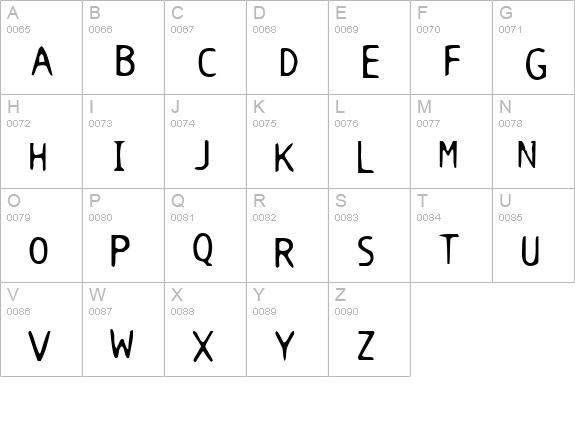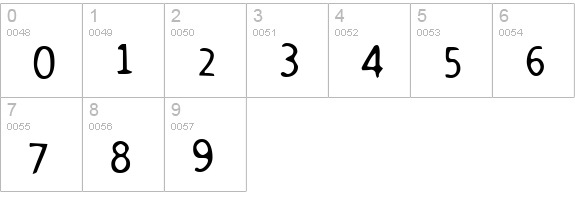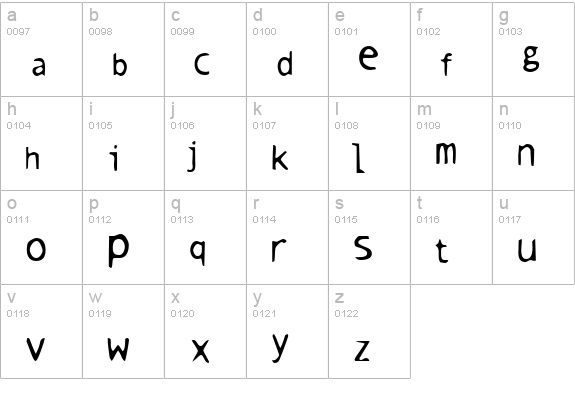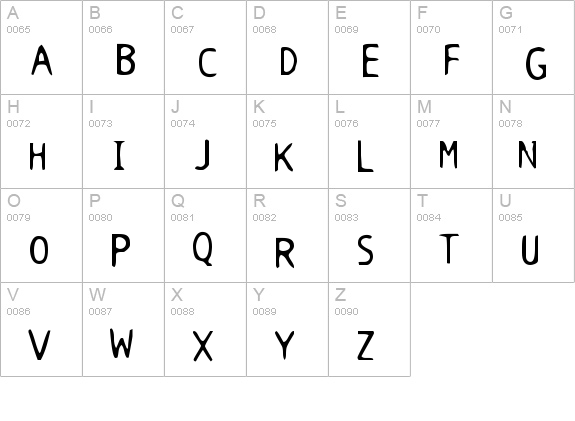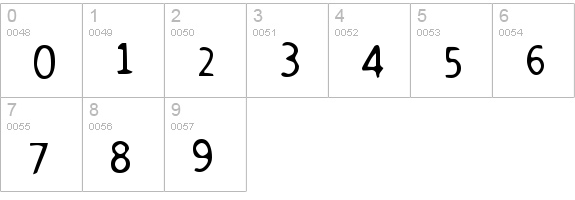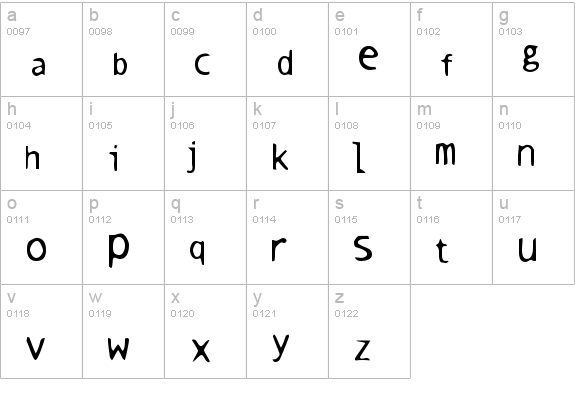
Warm milk Font Details
Introducing Warm Milk, a charming and cozy font that will bring a touch of nostalgia and warmth to your designs. This delightful typeface captures the essence of comfort and relaxation, making it perfect for a variety of projects. With its soft curves and gentle strokes, Warm Milk exudes a sense of tranquility, evoking images of a cozy evening spent by the fireplace or a peaceful morning sipping a cup of hot cocoa. Its elegant yet playful design adds a touch of whimsy, making it versatile for both lighthearted and sophisticated creations. The versatility of Warm Milk extends to its range of applications. From branding and packaging to invitations and greeting cards, this font will add a unique touch to any project. Its legibility ensures that your message will be conveyed effortlessly, while its distinctive style will make your design stand out from the crowd. What's more, Warm Milk is freely available to download at FontsMarket.com. Whether you're a professional designer or a hobbyist, this font offers you the opportunity to add a touch of warmth and charm to your creations without breaking the bank. So why wait? Head over to FontsMarket.com and download Warm Milk today to infuse your designs with a cozy and nostalgic flair.